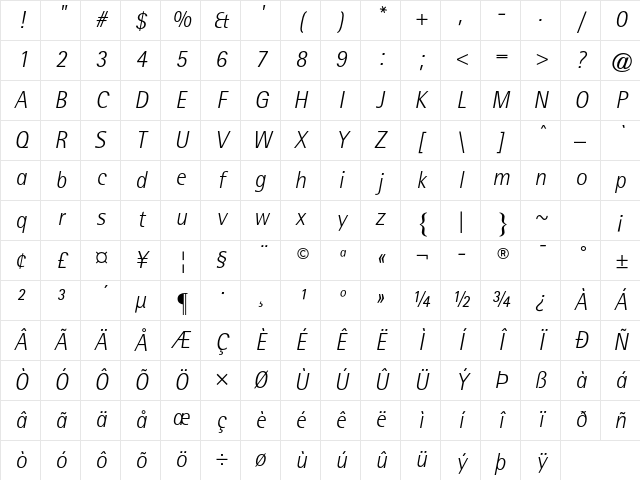
Rotis Semi Sans Std 46 Light Italic
Style: 46 Light Italic
Designer: Otl Aicher
Design Context for Rotis Semi Sans Std
Rotis Semi Sans Std is a composed and adaptable typeface that performs quietly and consistently across a wide range of design contexts. The slanted form adds forward momentum and visual energy. Its slender proportions lend an understated elegance to any composition.